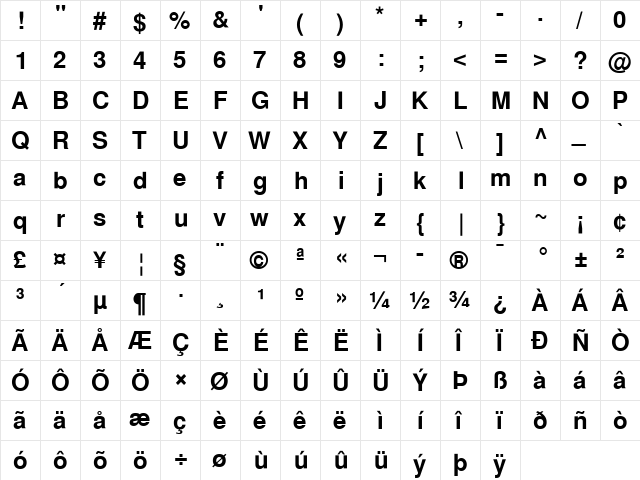
Nimbus Sans L Regular
| Foundry | by URW |
Design Context for Nimbus Sans L Typeface
Nimbus Sans L takes a measured approach to typography — its balanced proportions and neutral character make it a reliable workhorse for both digital and print work.